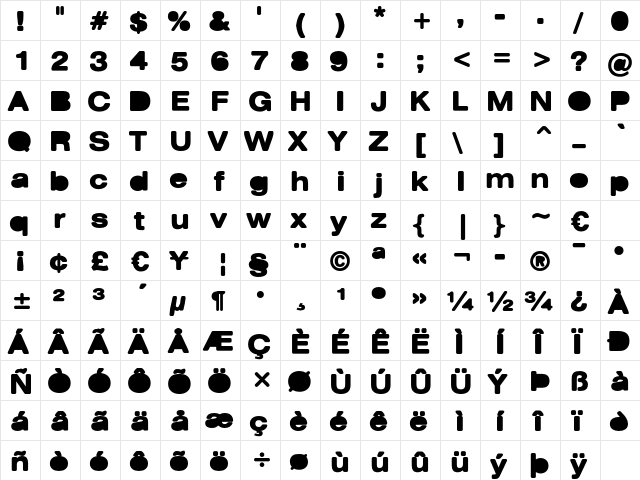
Buldozer Regular
| Designer | Billy Argel |
Design Context for Buldozer Typeface
Buldozer is a composed and adaptable typeface that performs quietly and consistently across a wide range of design contexts.